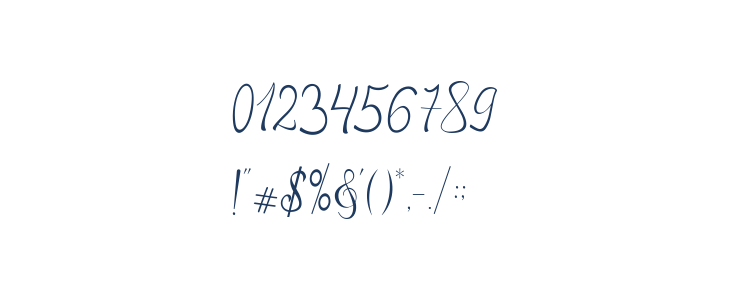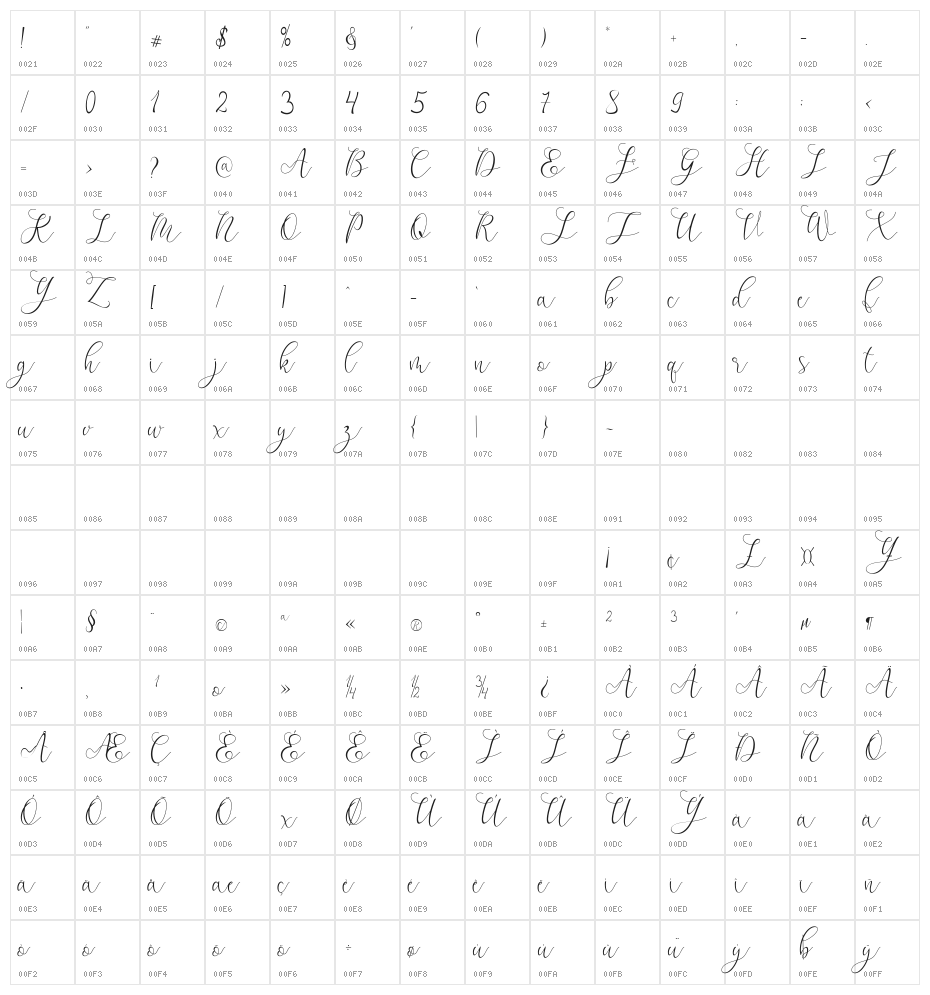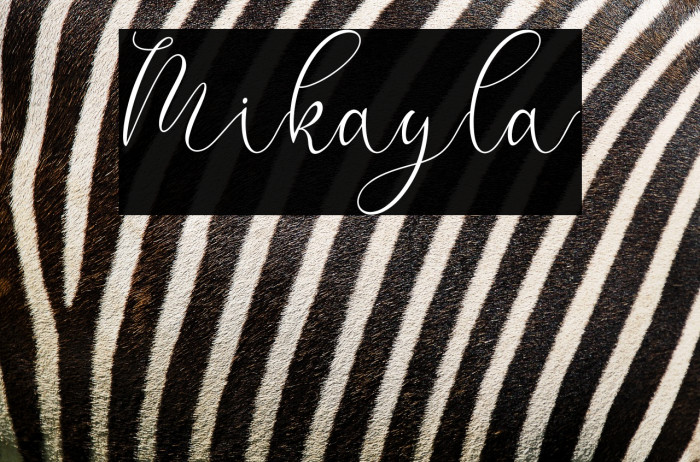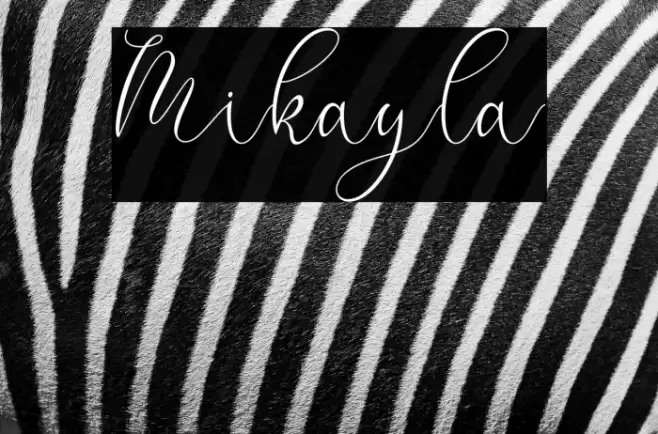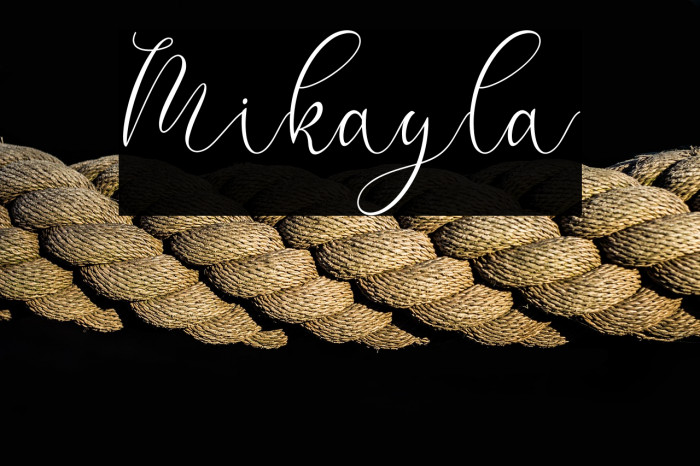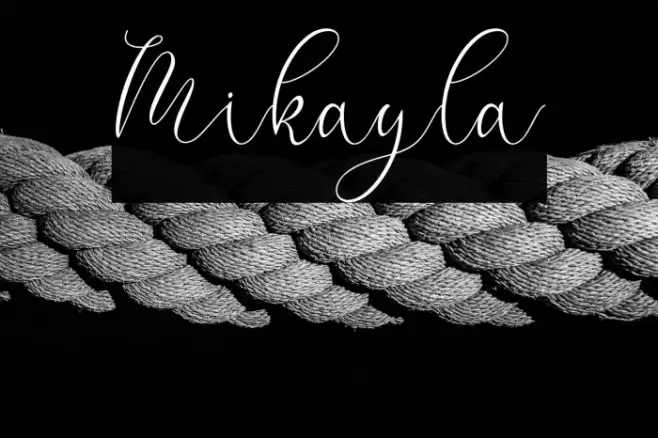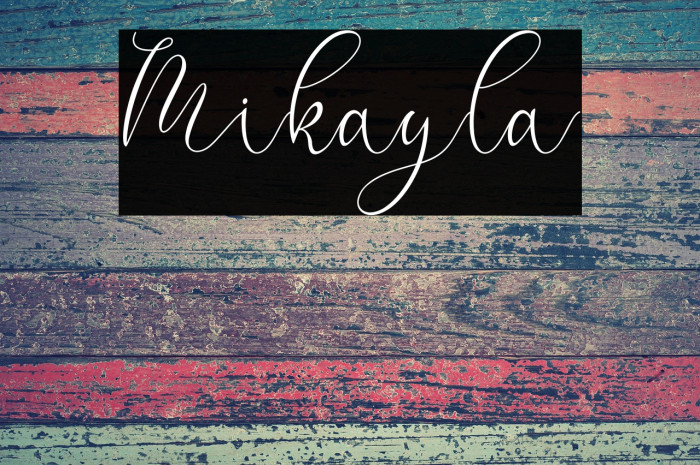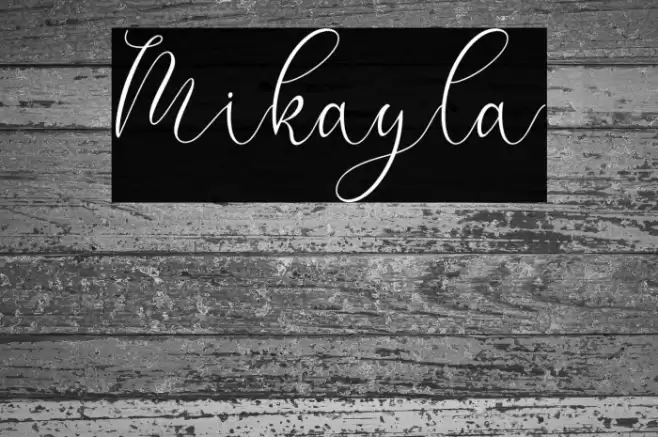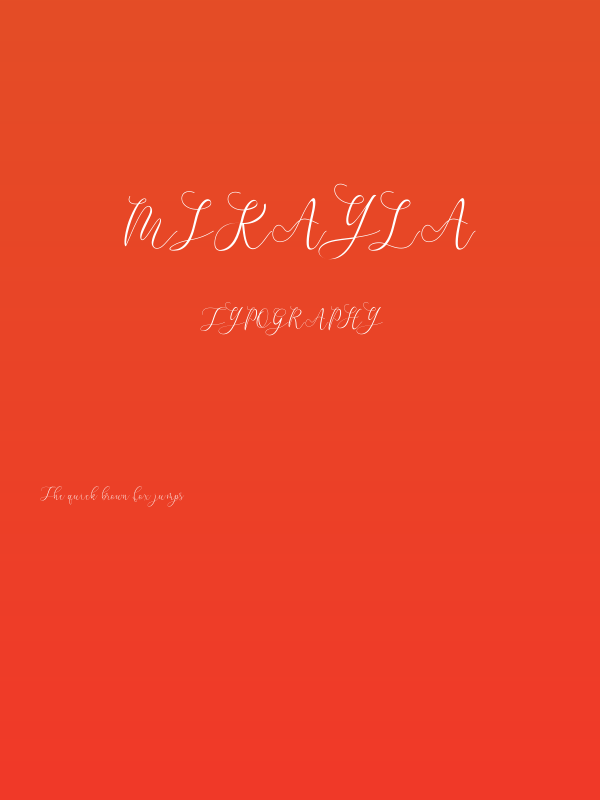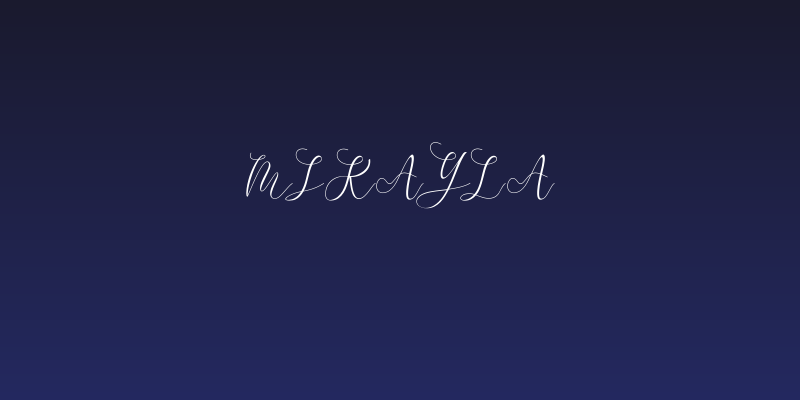
Mikayla Font
Mikayla Description
This elegant script font features flowing, cursive letterforms with a graceful and sophisticated appearance. The uppercase letters are characterized by their sweeping loops and flourishes, giving them a sense of movement and fluidity. The lowercase letters maintain a consistent style, with smooth, connected strokes that enhance readability while retaining an artistic flair. The numerals are designed to complement the overall aesthetic, with a slightly more structured form that balances the script's decorative nature. Special characters are thoughtfully integrated, maintaining the font's cohesive style. This font is ideal for projects that require a touch of elegance and sophistication, such as wedding invitations, branding, and high-end product packaging.
| Overall Style | Elegant, Sophisticated |
| Proposed Projects | Wedding invitations, luxury branding, elegant product packaging, personal stationery. |